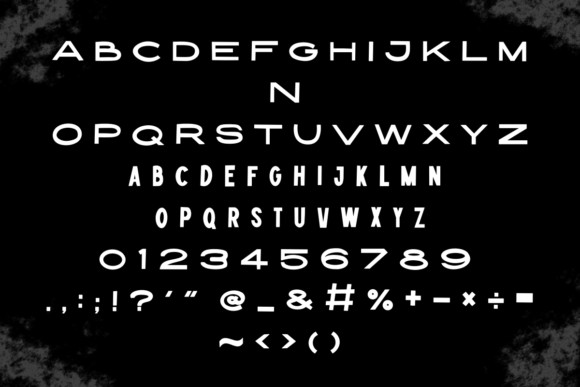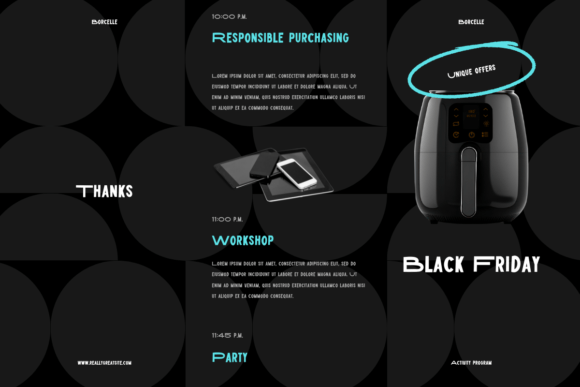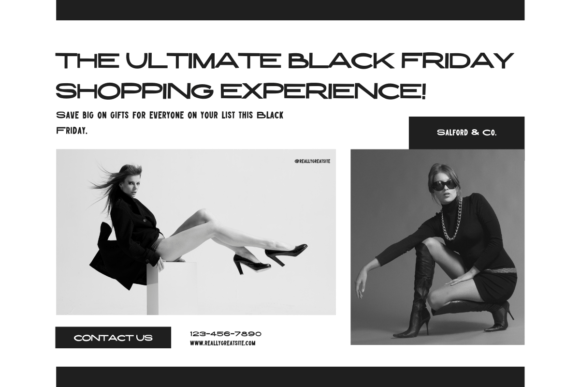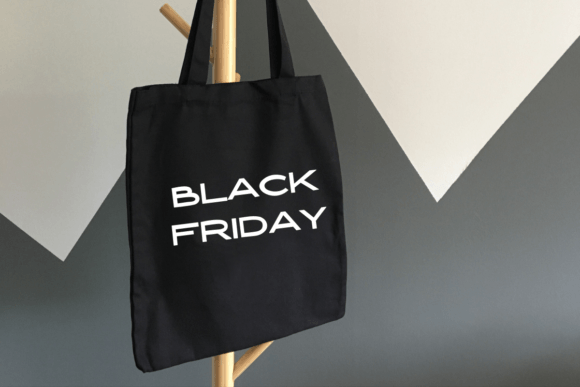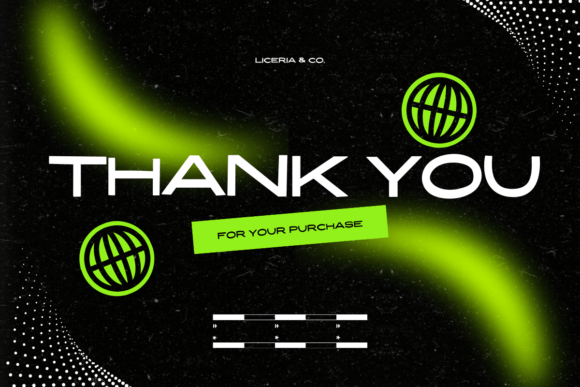
The Ultimate Design Game-Changer: Black Friday Font
I’ll never forget the time I was working on a project for a major client, and I was struggling to find the perfect font to convey their brand’s bold and edgy personality. The deadline was looming, and I was on the verge of using a generic sans serif font that wouldn’t do justice to the design. That’s when I stumbled upon the Black Friday font – a bold and assertive sans serif font that completely transformed my design. In this article, I’ll share my experience with this incredible font, its features, and how you can make the most of it in your designs.
An Honest Review of Black Friday Font
What I Love About Black Friday Font ✨
• 💥 **Bold and Assertive**: Black Friday font is perfect for making a statement. Its bold and assertive personality is ideal for headlines, titles, and any design element that needs to grab attention.
• ✅ **Versatile**: This font is incredibly versatile and can be used for a wide range of design projects, from posters and flyers to logos and branding.
• 🎨 **Highly Legible**: The font’s clean and simple design makes it highly legible, even at small sizes.
• ⚠️ **Limited Emphasis on Details**: While the font’s simplicity is a strength, it may not be the best choice for designs that require intricate details or ornate elements.
• 🤔 **Not Suitable for Body Text**: Due to its bold nature, Black Friday font may not be the best choice for body text or long paragraphs.
The Backstory of Black Friday Font
The Black Friday font was designed by a team of typographers who wanted to create a bold and assertive sans serif font that would make a statement. Inspired by the chaos and excitement of Black Friday shopping, the team aimed to create a font that would capture the energy and dynamism of this iconic shopping event.
Q: What is the Black Friday font?
A: The Black Friday font is a bold and assertive sans serif font designed for making a statement.
Q: Is the Black Friday font suitable for body text?
A: No, the Black Friday font is not suitable for body text due to its bold nature. It’s best used for headlines, titles, and other design elements that require attention.